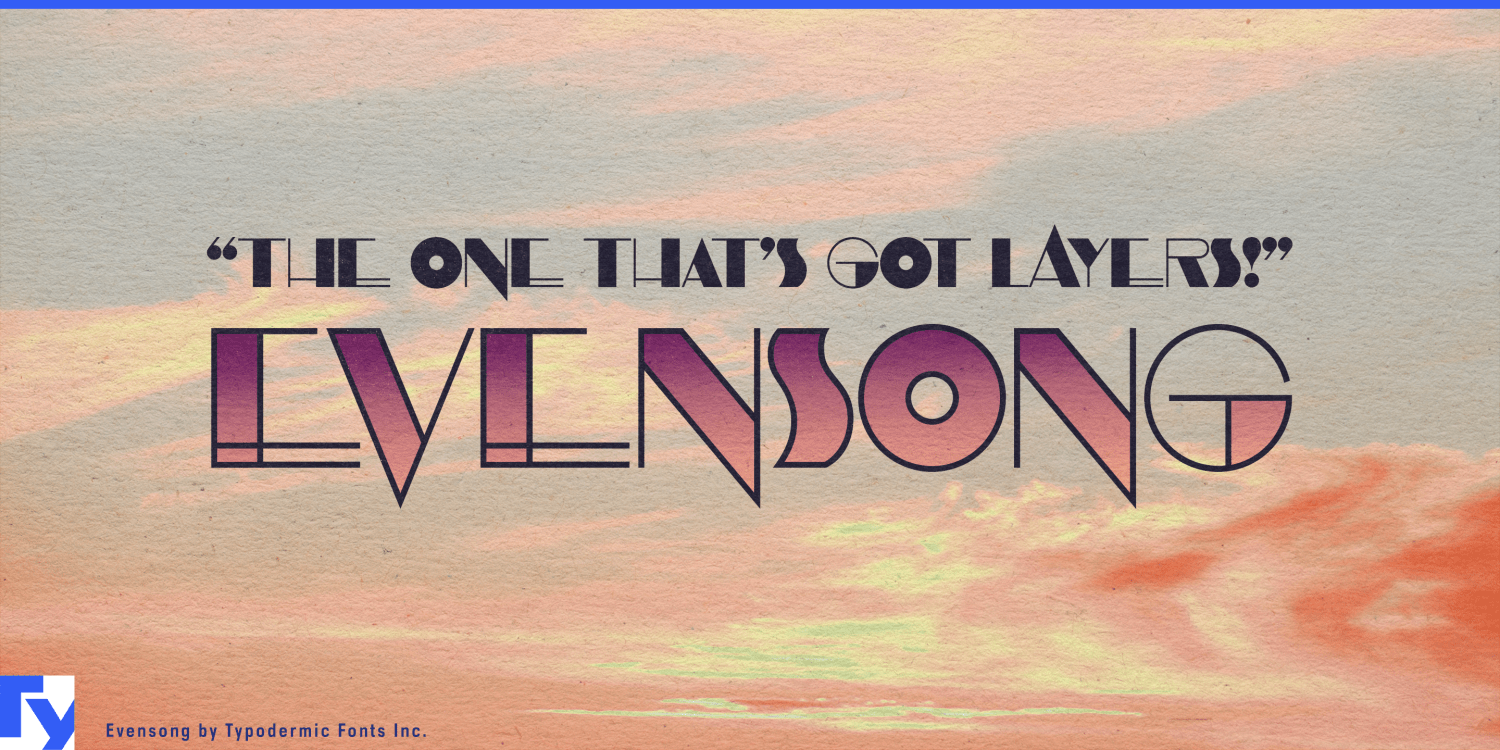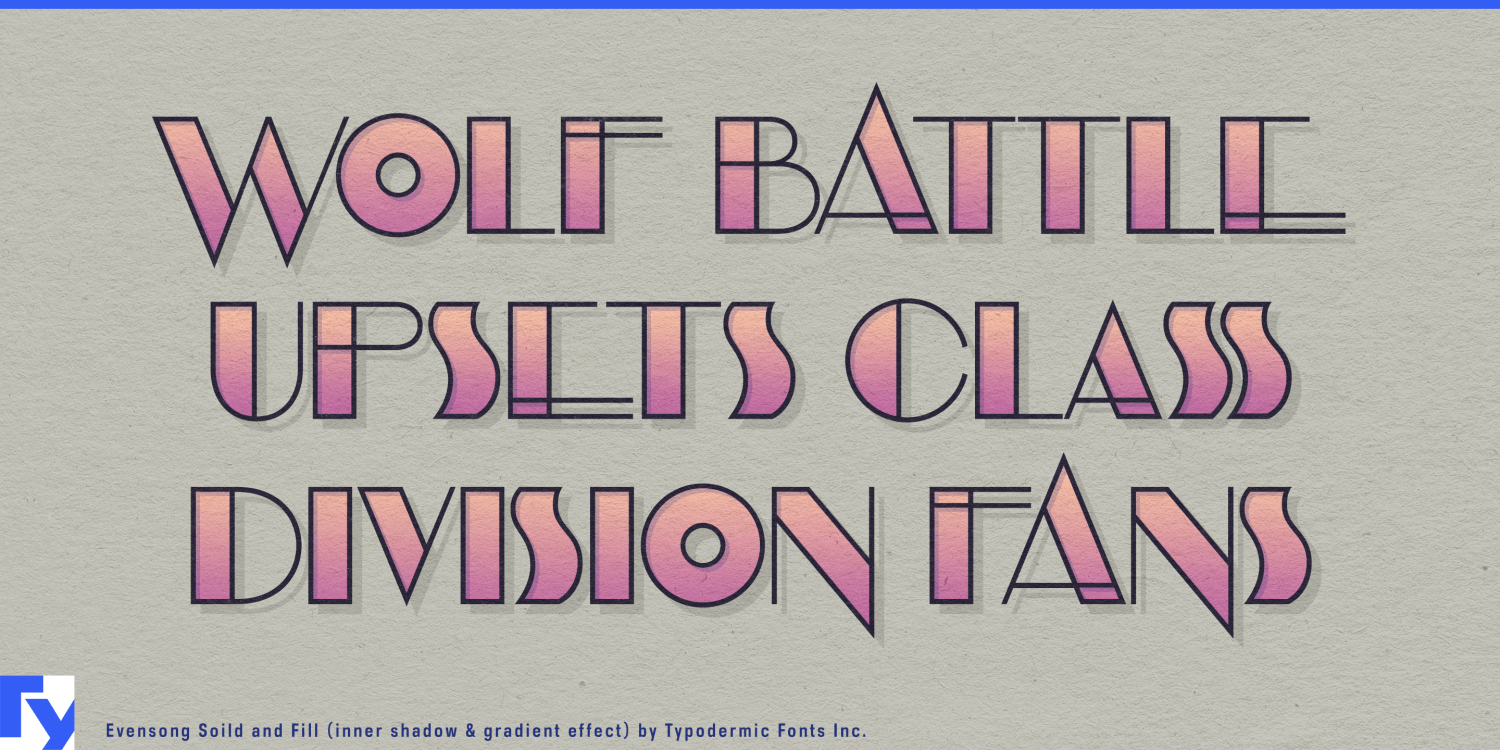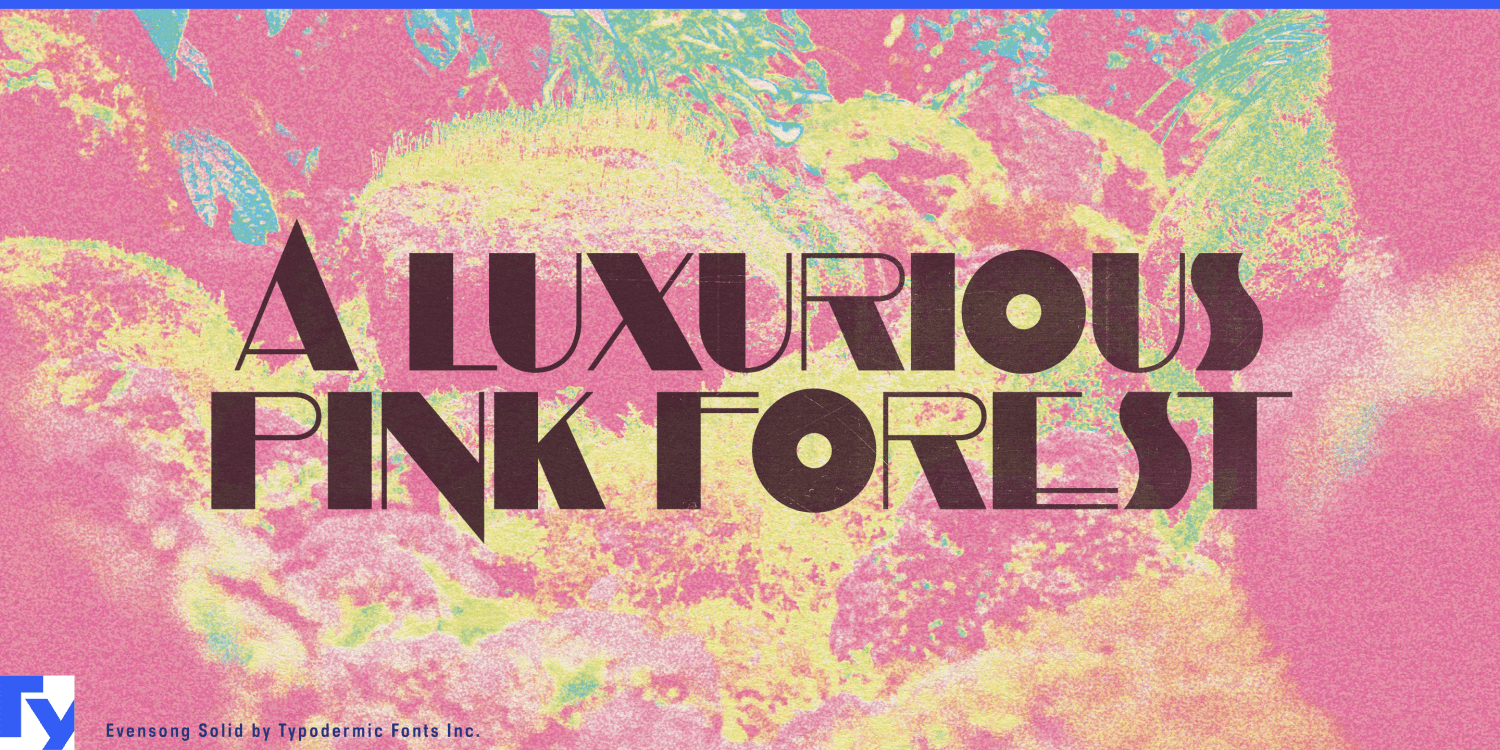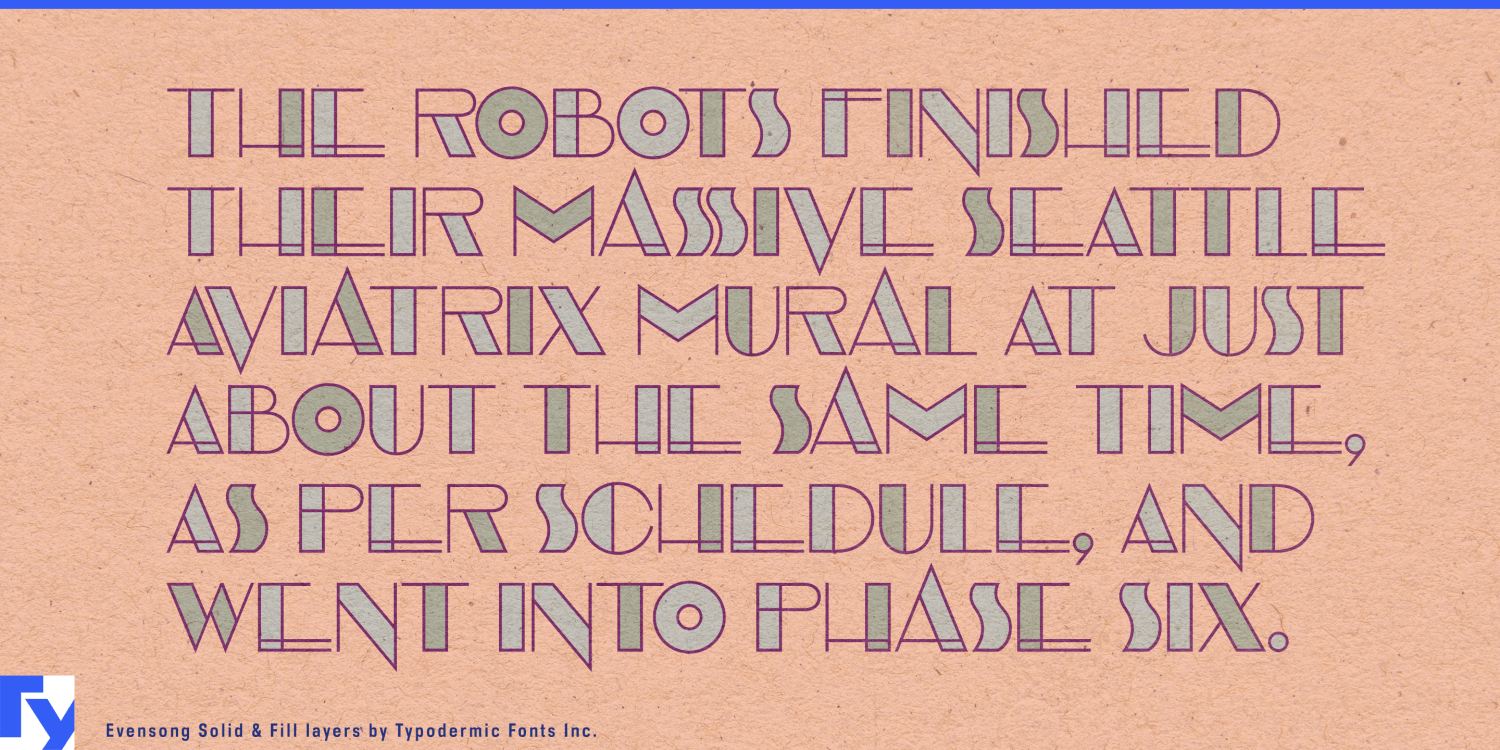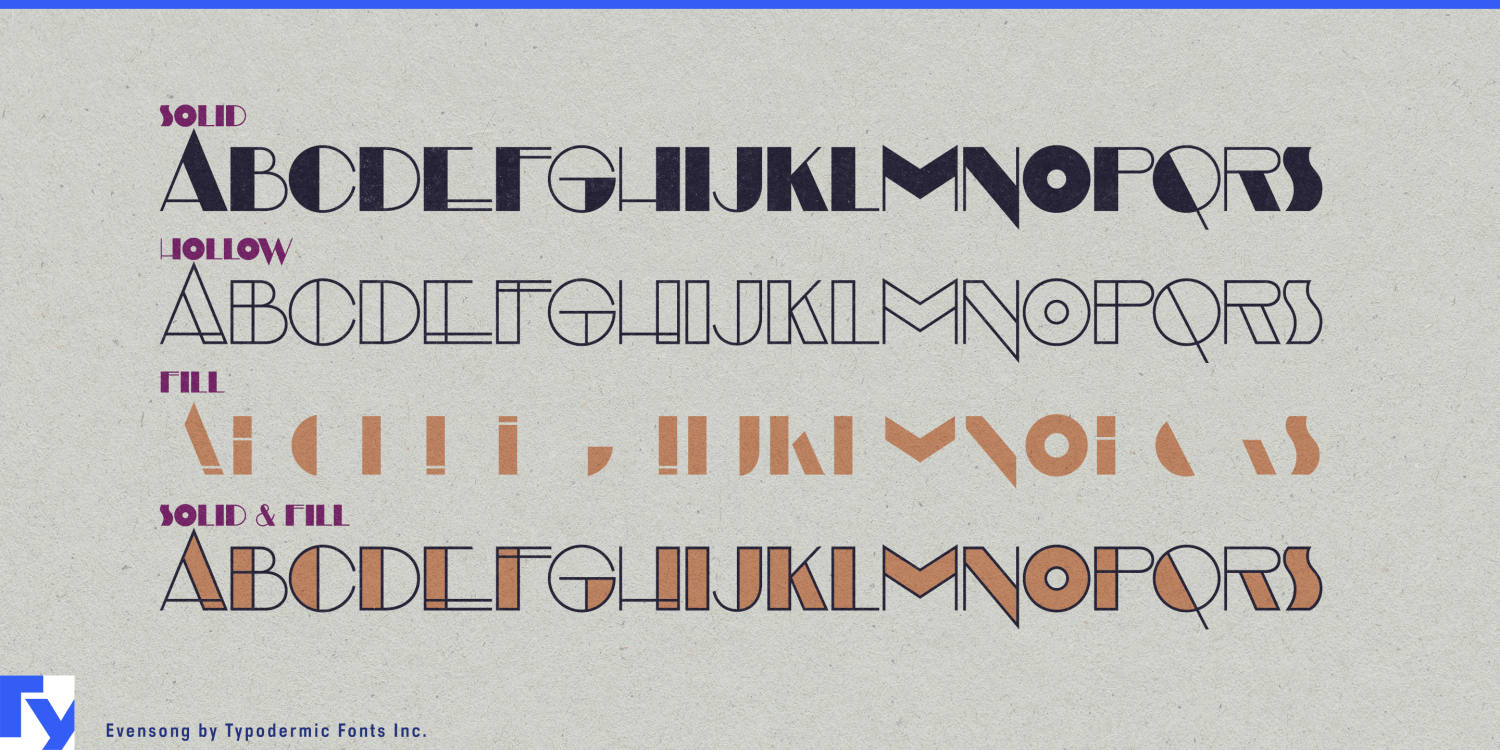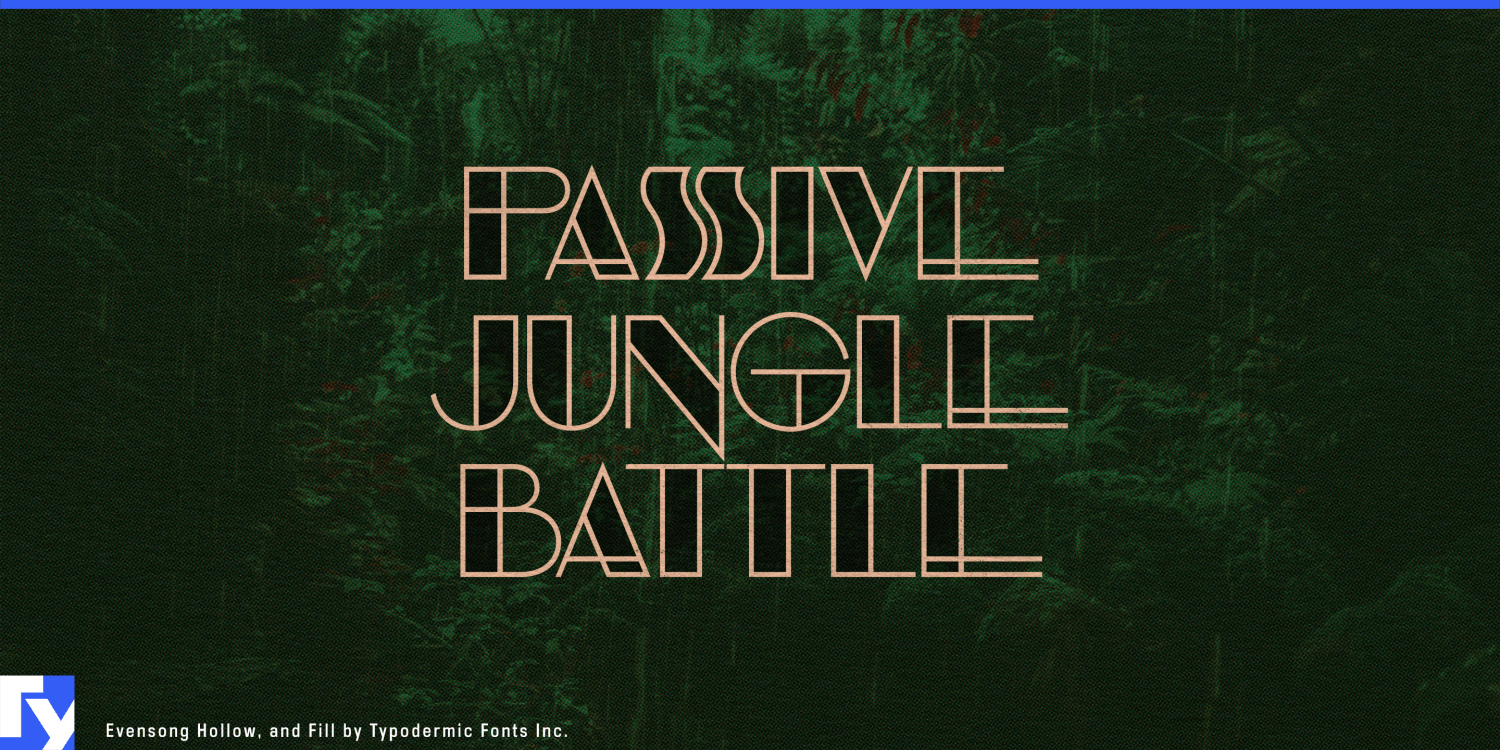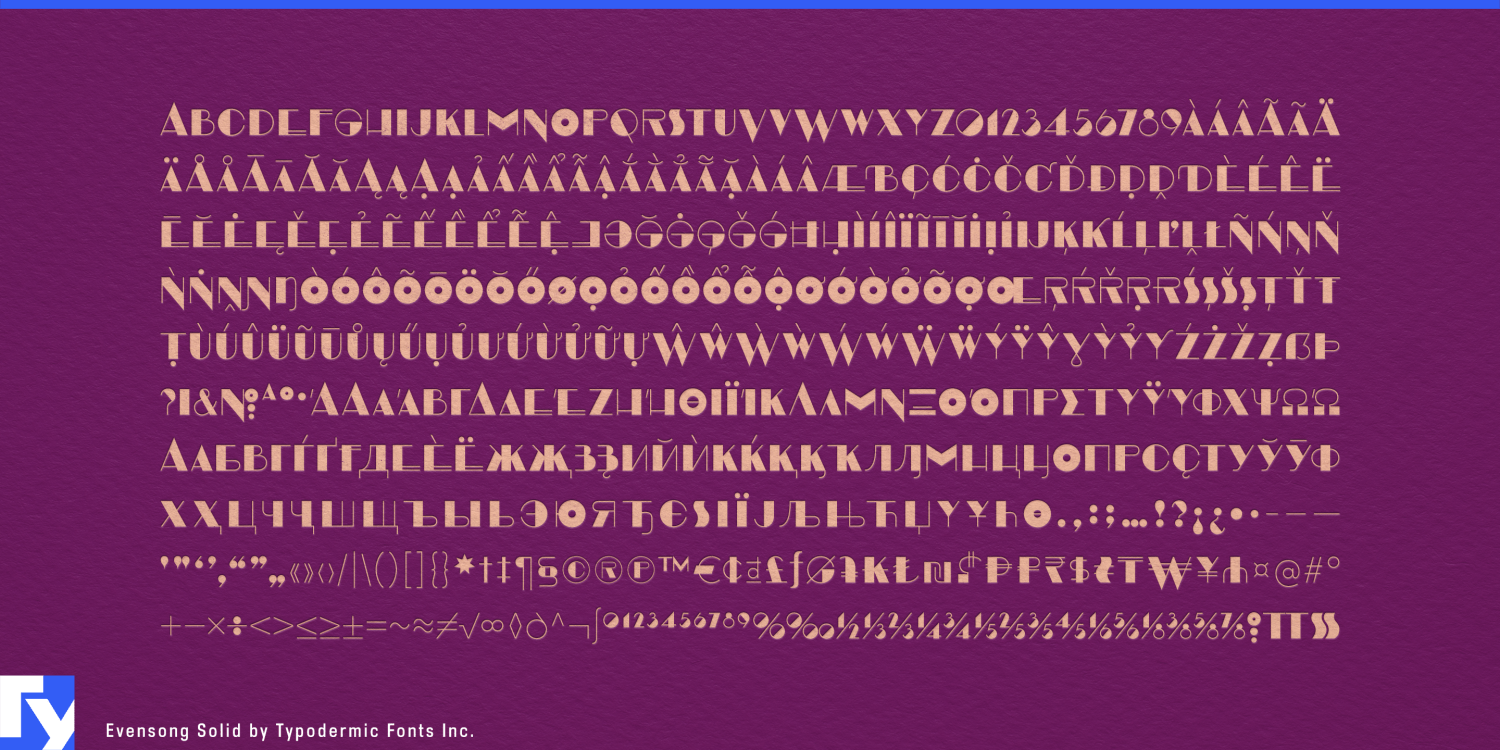
Evensong
Art Deco is easy to recognize, which is exactly what makes it difficult to use without looking familiar. Evensong starts with the geometry and theatrical contrast associated with the period, then puts the weight in unexpected places. Curves become heavy where a conventional Deco alphabet might turn thin, while the unusual S and other eccentric forms give short words silhouettes that resist the standard Broadway formula.
That odd distribution of thick and thin has genuine fashion roots. Evensong grew from lettering used on an experimental 1927 Vogue masthead, from an era when the magazine changed its masthead frequently rather than treating it as a fixed logo. The source gives Evensong a connection to fashion history without tying it to the familiar Vogue identity.
Fashion editorial is natural territory. Collection names, feature openers, lookbook dividers, runway invitations, campaign titles and shop-window graphics can use Evensong when conventional geometric Deco feels too predictable. Its narrow capitals sit comfortably beside photography, while the unusual contrast gives even a short name enough structure to become part of the composition.
Beauty offers another strong setting. Fragrance launches, makeup collections, limited-edition packaging, salon identities and beauty pop-ups can use Evensong for names and campaign headlines that need polish without falling back on the usual high-contrast luxury serif. A salon name can move from storefront lettering and appointment cards to treatment campaigns and seasonal window graphics while a quieter companion face handles prices, services and booking information.
Jewelry, accessories and fashion-oriented exhibitions suit the same graphic precision. Collection names, launch invitations, display cards, costume exhibitions and decorative-arts events can use Evensong at the scale where its unusual weight distribution becomes part of the visual material rather than simply carrying a word.
The free Hollow style shows the architecture of the design, but the full family goes further. Coordinated Solid and Fill styles can be stacked with Hollow to build multi-layer lettering, allowing separate colors, patterns and other treatments to occupy different parts of the same characters. Fashion campaigns, beauty launches, salon windows and exhibition graphics can therefore move from restrained outline lettering to elaborate layered treatments without redrawing the wordmark.
Evensong’s advantage is not nostalgia. Its unconventional thick-and-thin logic keeps it away from familiar Deco formulas, while its coordinated layers let designers treat the letters as graphic construction material; a fashion masthead can become a salon window, a cosmetics campaign or an exhibition title without losing its peculiar internal rhythm.